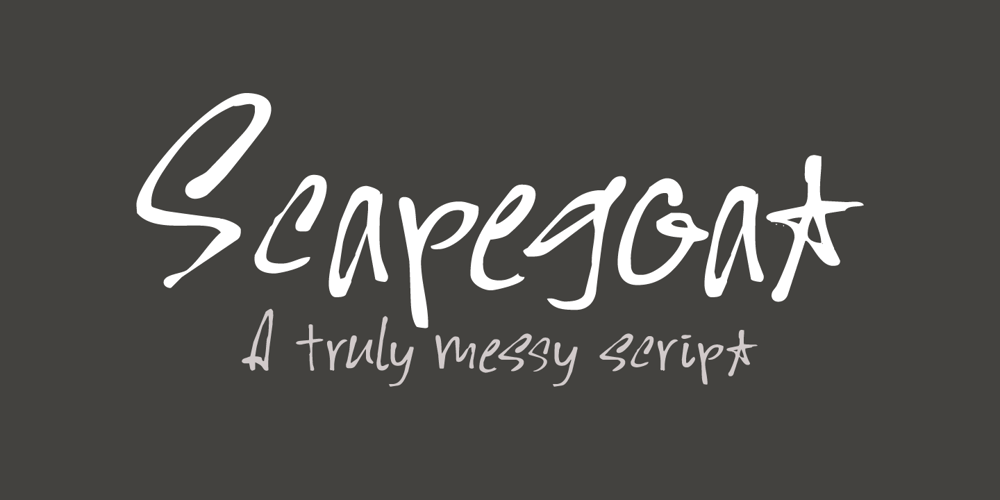
Scapegoat
Scapegoat font
Scapegoat Font Family was designed by David Kerkhoff and published by Hanoded. Scapegoat contains 2 styles and family package options. I have been making some clean, connected fonts lately and when I was working on another one of these, I felt the need for something chaotic. So, Scapegoat was born. I used a round nibbed steel pen and Chinese ink and the result is quite a messy font. It may look chaotic, but as Nietzsche once said: ‘from chaos comes order’. Amen to that! Comes with double letter ligatures for the lower case and a whole lot of diacritics.